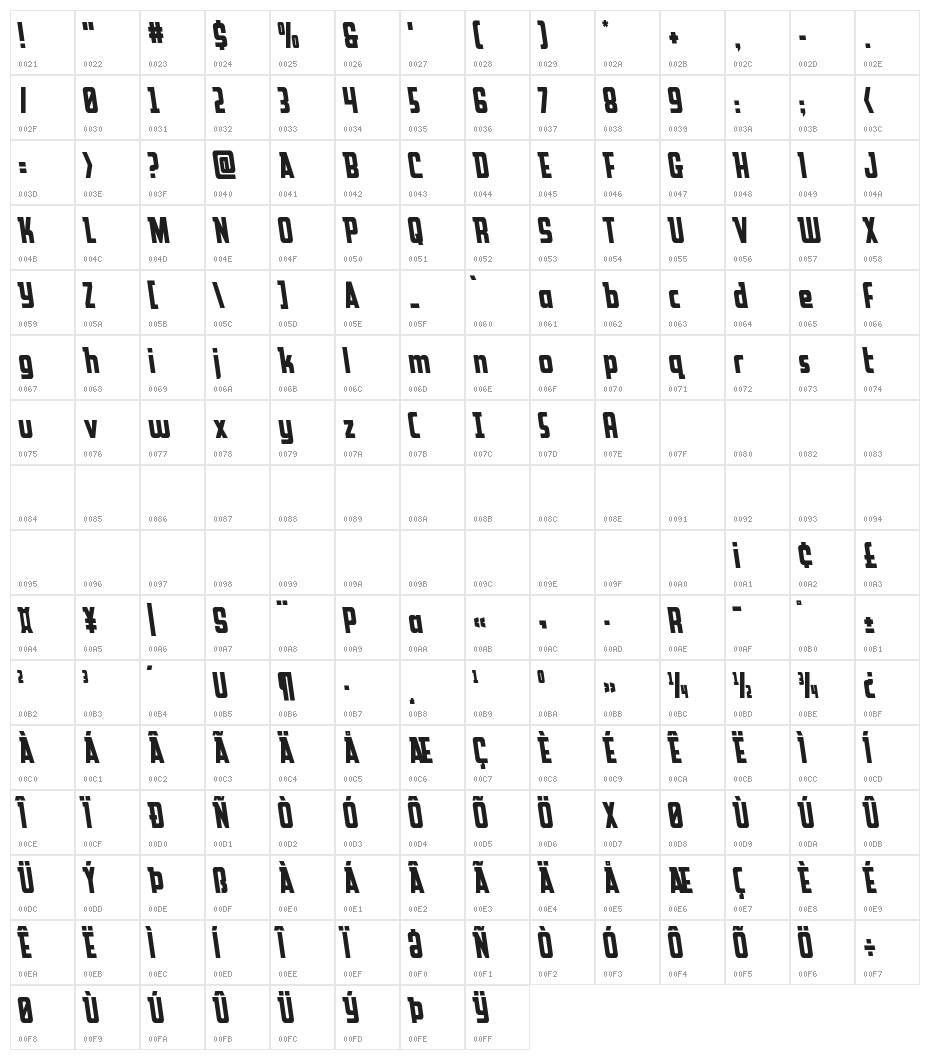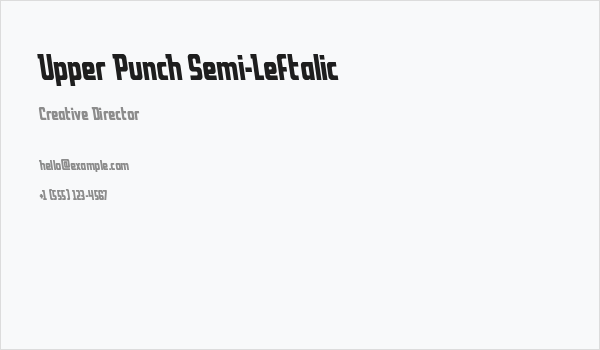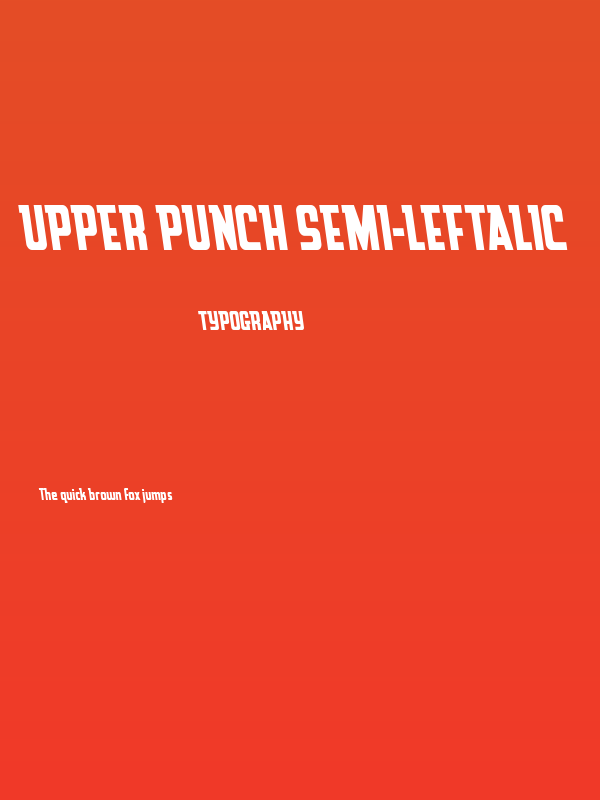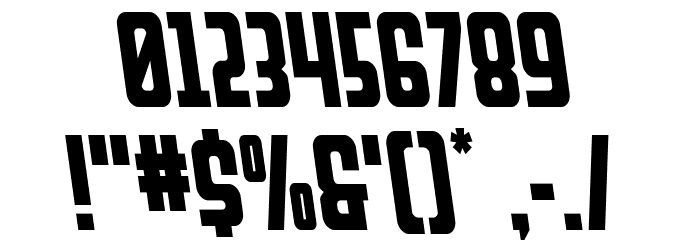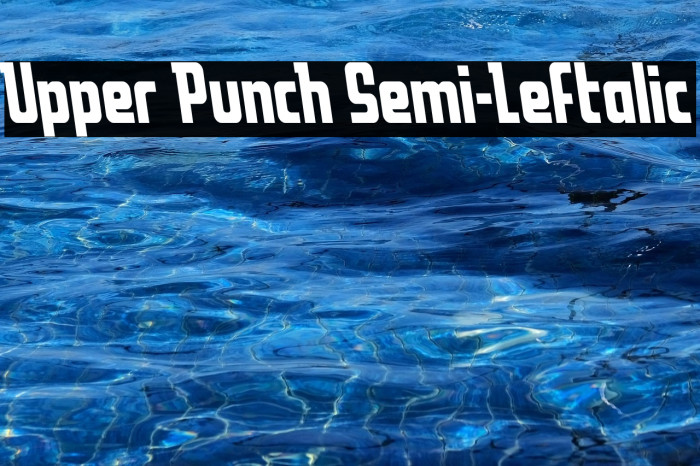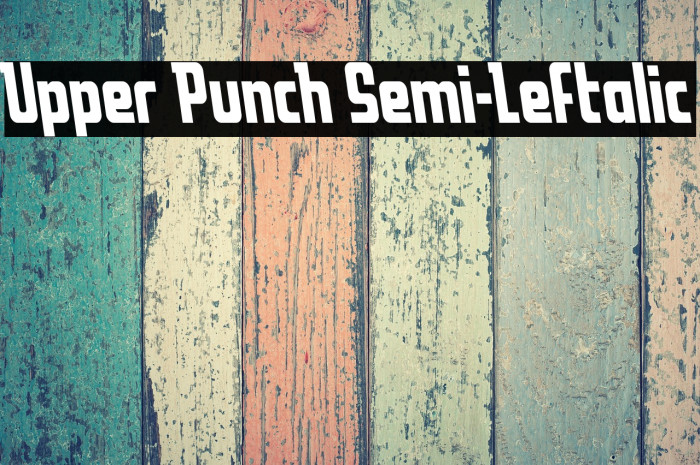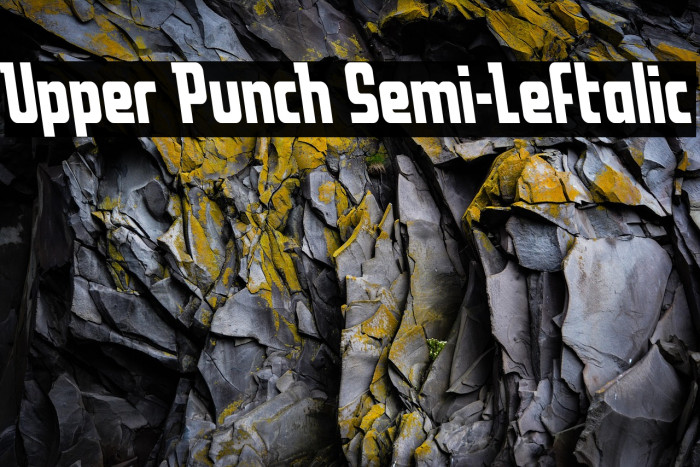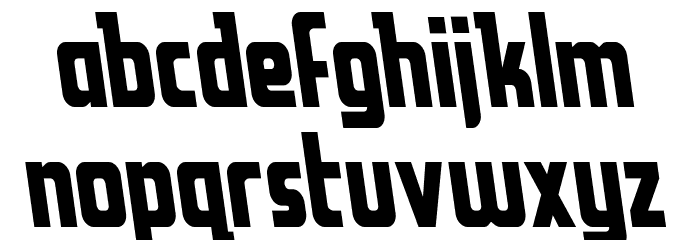
Upper Punch Semi-Leftalic Font
Upper Punch Semi-Leftalic Description
This font features a bold and dynamic style with a semi-italic slant, giving it a sense of movement and energy. The characters are robust and slightly condensed, with thick strokes that convey strength and impact. The uppercase and lowercase letters maintain a consistent design, while the numerals and special characters complement the overall aesthetic. The font's unique slant and boldness make it stand out, suitable for projects that require a strong visual presence.
| Proposed Projects | Ideal for sports branding, posters, headlines, and any design needing a bold statement. |